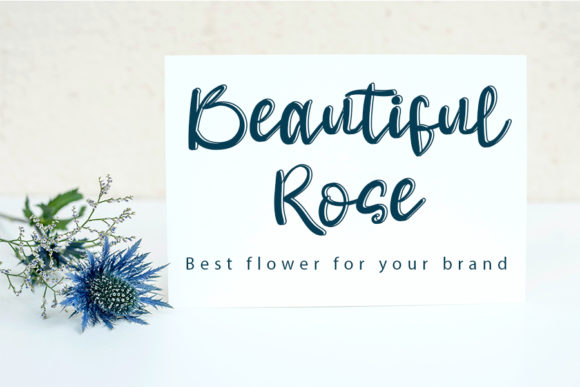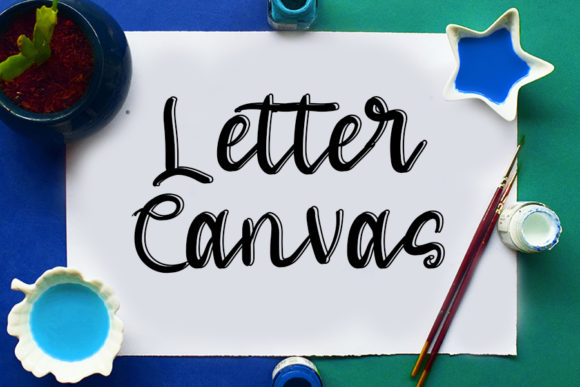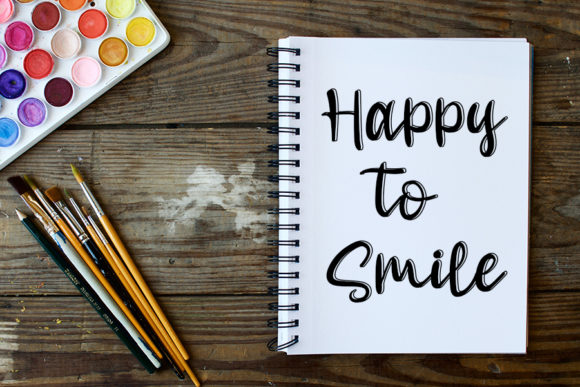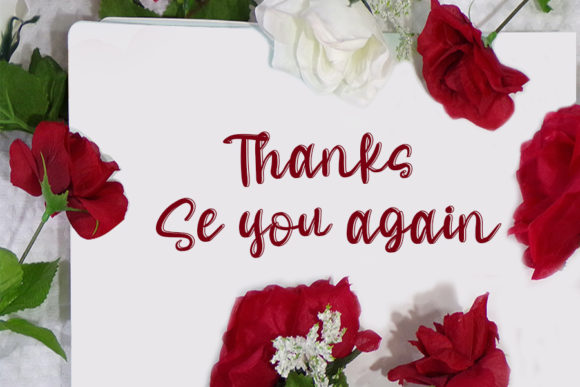
Aellena Font: Elevate Your Designs with Elegance and Sophistication
In the world of typography, few fonts manage to strike a balance between classic elegance and modern flair. Aellena Font is one such exquisite handwritten font that has been masterfully designed to become a true favorite among designers and crafters. With its classy calligraphic influences and contemporary feel, Aellena is the perfect choice for those looking to add a touch of sophistication to their projects.
The Story Behind Aellena Font
Aellena Font is a beautiful example of modern calligraphy, carefully crafted to evoke a sense of luxury and refinement. Its elegant strokes and flowing lines are reminiscent of traditional calligraphy, yet its fresh and contemporary feel makes it perfect for modern designs. Whether you’re working on a branding project, a wedding invitation, or a craft project, Aellena Font is sure to impress.
Key Features of Aellena Font
- Exquisite Handwritten Design: Aellena Font boasts a beautiful, handwritten design that is both elegant and sophisticated.
- Classy Calligraphic Influences: The font’s calligraphic influences give it a timeless, classic feel that is perfect for high-end designs.
- Contemporary and Fresh: Despite its classic influences, Aellena Font feels modern and fresh, making it perfect for a wide range of design projects.
- Highly Versatile: Aellena Font is suitable for a variety of design projects, from branding and advertising to wedding invitations and craft projects.
Why Choose Aellena Font?
With so many fonts available, why choose Aellena Font for your next project? Here are just a few reasons:
- Elegance and Sophistication: Aellena Font adds a touch of elegance and sophistication to any design project.
- Easy to Read: The font’s clear and flowing lines make it easy to read, even at small sizes.
- Unique and Memorable: Aellena Font’s unique design makes it stand out from more traditional fonts, ensuring your project will be remembered.
- Supports Multiple Languages: Aellena Font supports multiple languages, making it a great choice for international design projects.
Using Aellena Font in Your Designs
Aellena Font is incredibly versatile and can be used in a wide range of design projects, including:
- Branding and Advertising: Use Aellena Font to create elegant and sophisticated brand identities and advertising materials.
- Wedding Invitations and Stationery: Add a touch of luxury and refinement to your wedding invitations and stationery with Aellena Font.
- Craft Projects: Aellena Font is perfect for craft projects, such as handmade cards, gift tags, and scrapbooking.
- Digital Designs: Use Aellena Font in your digital designs, such as social media graphics, blog headers, and website titles.
Tips for Getting the Most Out of Aellena Font
To get the most out of Aellena Font, here are a few tips:
- Experiment with Font Sizes: Aellena Font looks great at a range of font sizes, from large headings to smaller body text.
- Pair with Complementary Fonts: Pair Aellena Font with complementary fonts to create visually interesting and dynamic designs.
- Use in Combination with Images: Use Aellena Font in combination with images to create stunning and effective designs.
In conclusion, Aellena Font is an exquisite handwritten font that is sure to become a favorite among designers and crafters. Its classy calligraphic influences, contemporary feel, and versatility make it perfect for a wide range of design projects. Whether you’re looking to add a touch of elegance and sophistication to your branding, wedding invitations, craft projects, or digital designs, Aellena Font is the perfect choice.